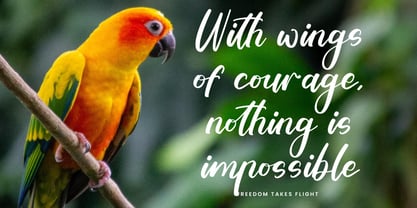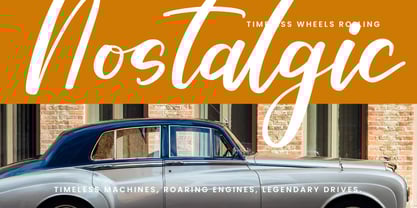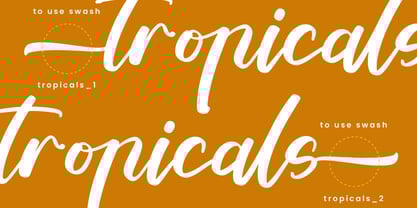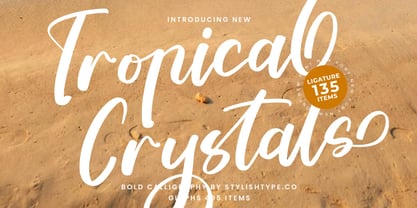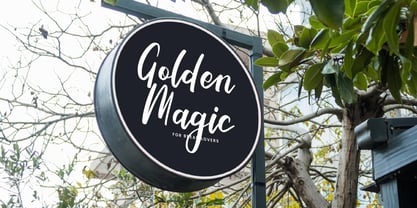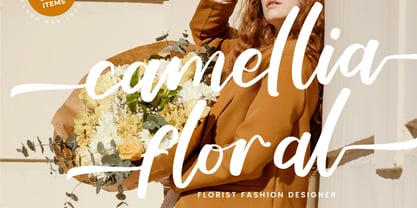
Tropical Crystals
by Stylishtype Studio
The Tropical Crystals Font Family was designed by Heru Utama Putra and published by Stylishtype Studio. Tropical Crystals contains 2 styles and family package options.
Tropical Crystals - Bold Calligraphy, from Stylishtype, Suitable for any projects such as: logos, branding projects, homeware designs, product packaging, mugs, quotes, posters, shopping bags, t-shirts, book covers, name card, invitation cards, greeting cards, label, photography, watermark, special events, and all your other luxury and beautiful projects that need a Luxury Script taste.